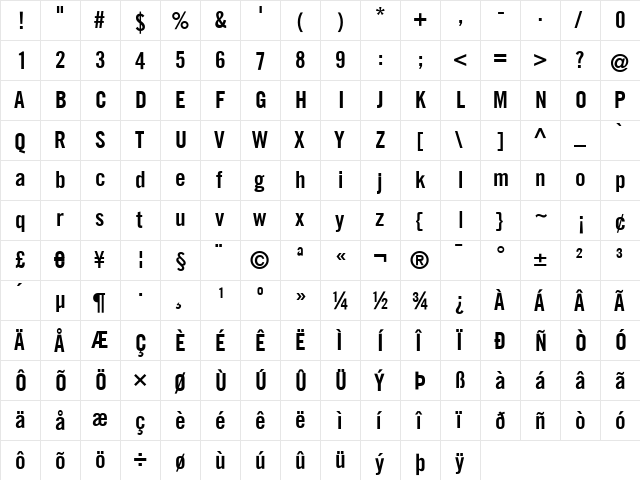
TraditionellSans Bold
Design Context for TraditionellSans Typeface
TraditionellSans offers clean, dependable letterforms without strong stylistic allegiance, making it a practical choice for designers who need flexibility. The heavy weight commands attention and anchors typographic hierarchies.